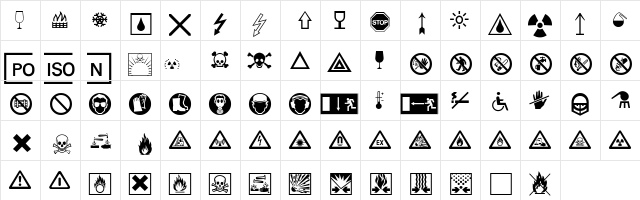
WarningLH-Pi Regular Font Preview
WarningLH-Pi Regular
WarningLH-Pi Regular Font Details
Design Context for WarningLH-Pi Typeface
WarningLH-Pi takes a measured approach to typography — its balanced proportions and neutral character make it a reliable workhorse for both digital and print work.